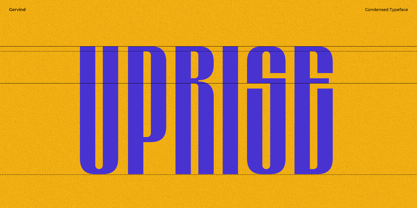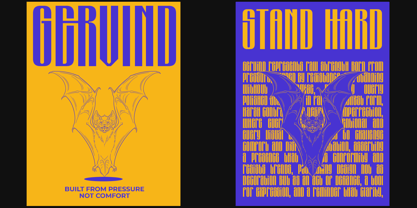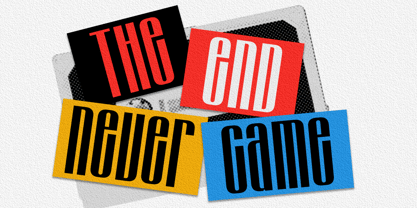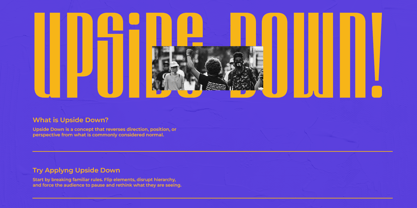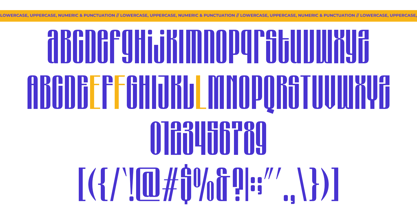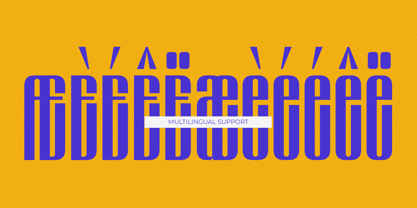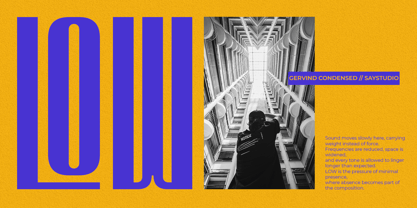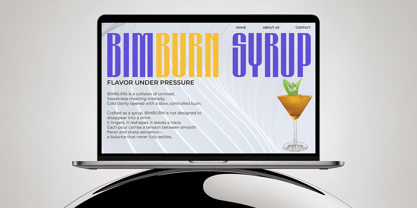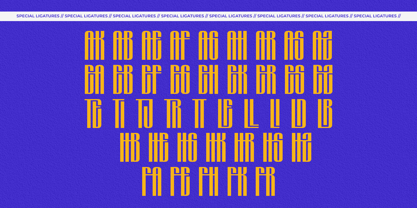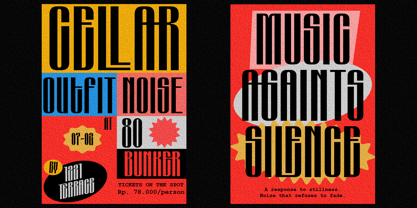
Gervind
Die Schriftfamilie Gervind wurde von Mussyayin entworfen und von Say Studio veröffentlicht. Gervind enthält 2 Stile und Familienpaketoptionen. Mehr über diese Familie
Gervind is a bold condensed display typeface designed to deliver maximum visual impact in modern design projects. With its tall proportions, strong structure, and clean geometry, Gervind exudes a powerful, confident presence that instantly captures attention. Engineered for high-performance typography, this font is perfect for dominating headlines, posters, branding systems, and digital visuals where clarity and strength are paramount. Inspired by contemporary graphic trends, editorial layouts, and commercial branding needs, Gervind excels in providing sharp readability while maintaining a bold personality. Its condensed form enables designers to create striking compositions without sacrificing space, making it ideal for packaging, advertising, social media content, motion graphics, and UI design. Whether utilized in large-scale campaigns or compact layouts, Gervind ensures consistent impact across all platforms. Perfect for branding designers, creative studios, content creators, and marketing teams, Gervind offers a versatile and reliable typographic solution for modern visual communication. From logos and promotional materials to social media graphics and motion design, this font empowers creative projects with a bold presence, contemporary style, and timeless visual appeal that stands out across both digital and print platforms. Thank You! Happy Creating! Saystudio